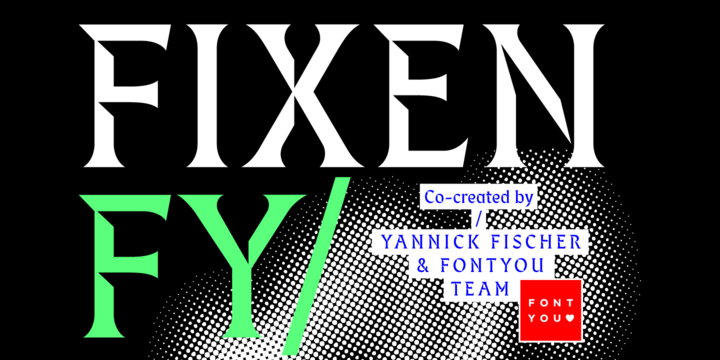
Here comes Fixen FY!
This beautiful typeface has flared pointed serifs and its structure is chiseled, freely interpreting engraved letters. The texture is strong, delicate, and airy due to these visible cuts into the letter-shapes.
Fixen FY is certainly good looking in headline size, but will also give a beautiful color when used in smaller size.
Fixen FY was created by Yannick Fischer & Fontyou Team on co-create.fontyou.com, the first collaborative type foundry.